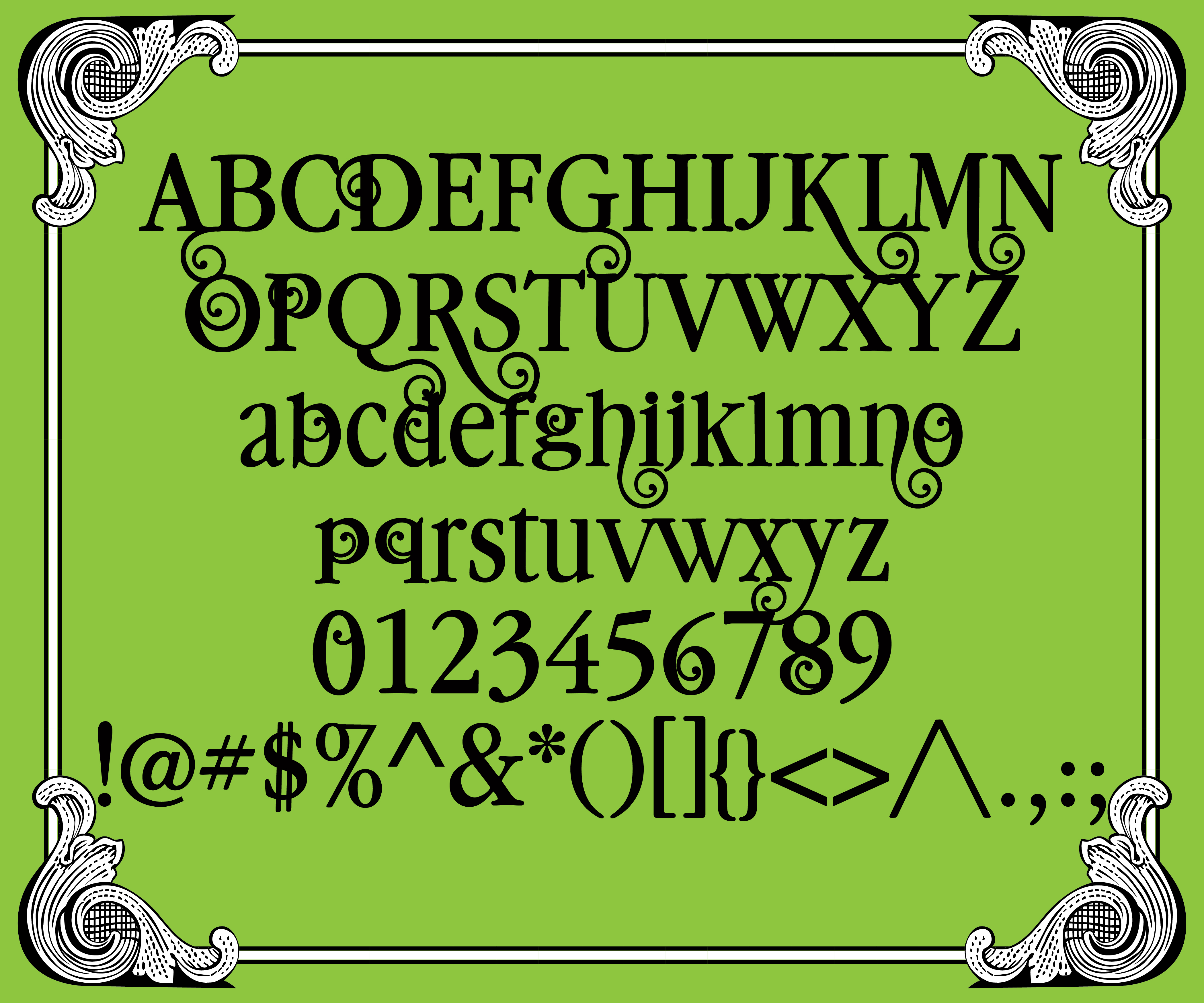
Introduction to Millionaire Bachelor Font
Millionaire Bachelor is a fabulous serif font has heavily flourished lettering and stubby ascenders.
It’s a great font for formal occasions, but doesn’t take itself too seriously .